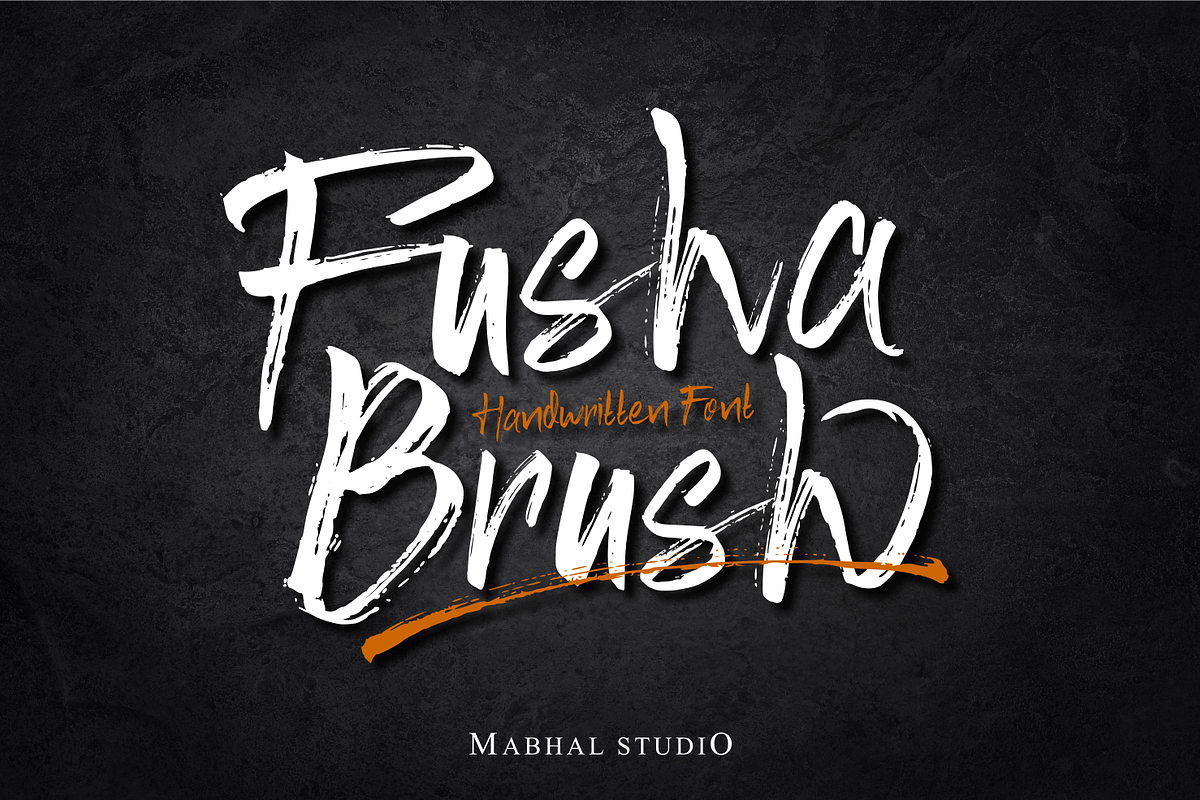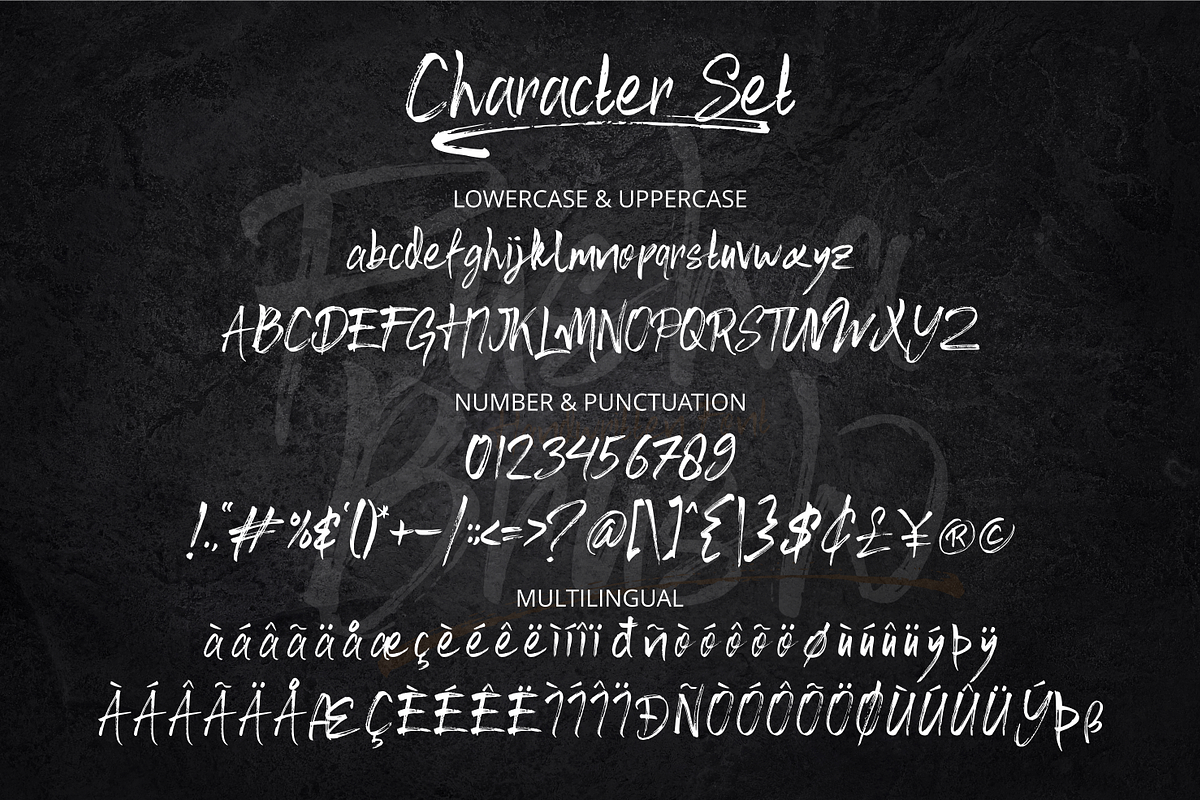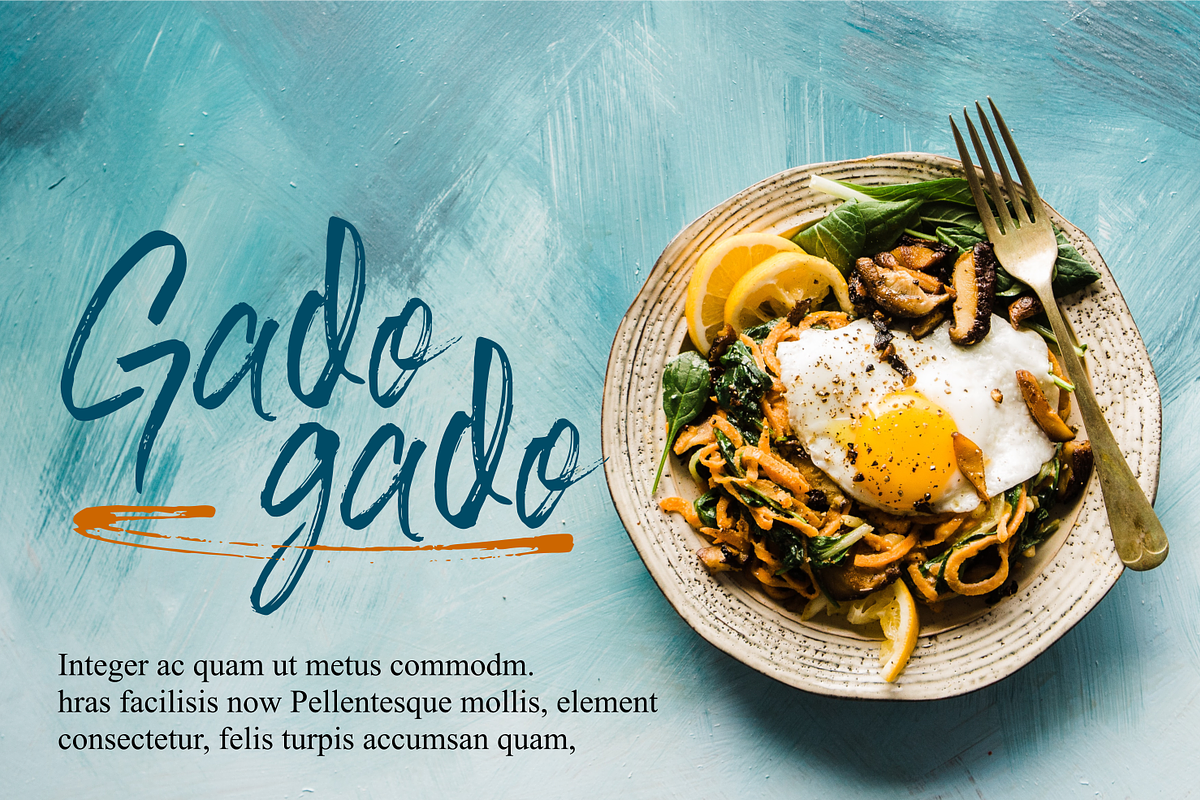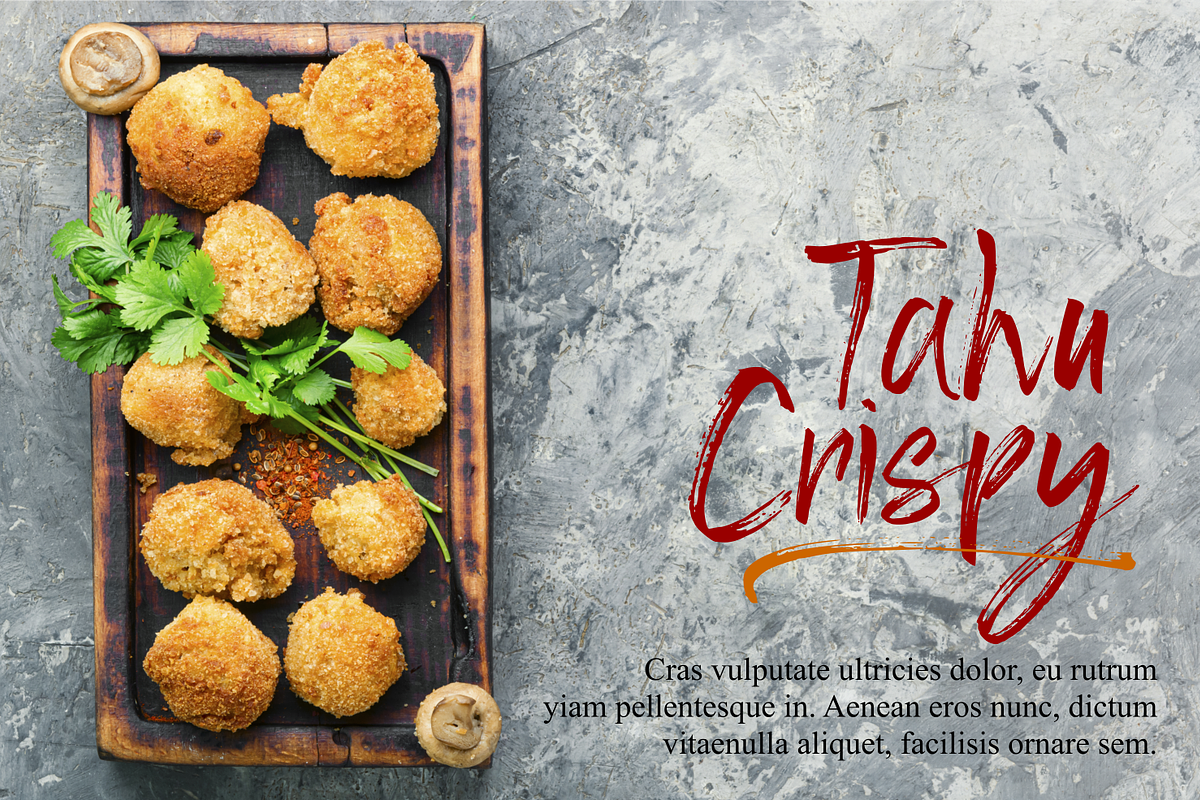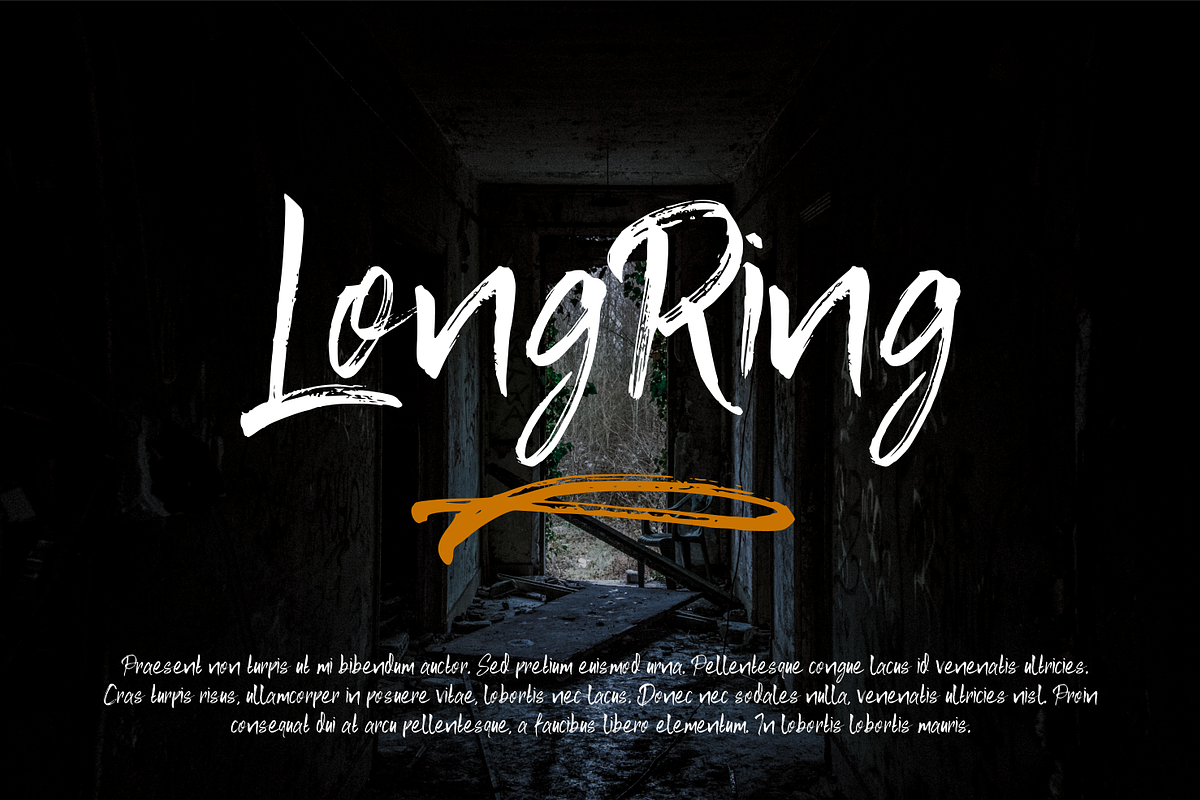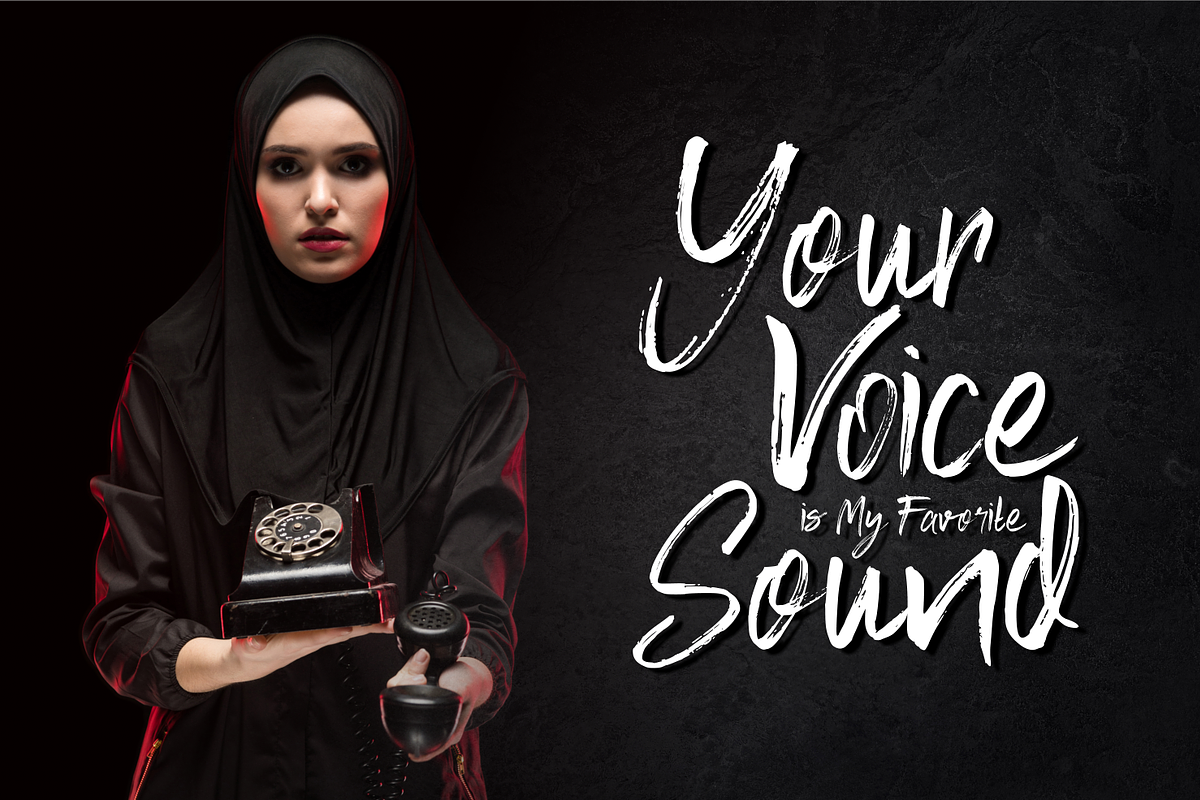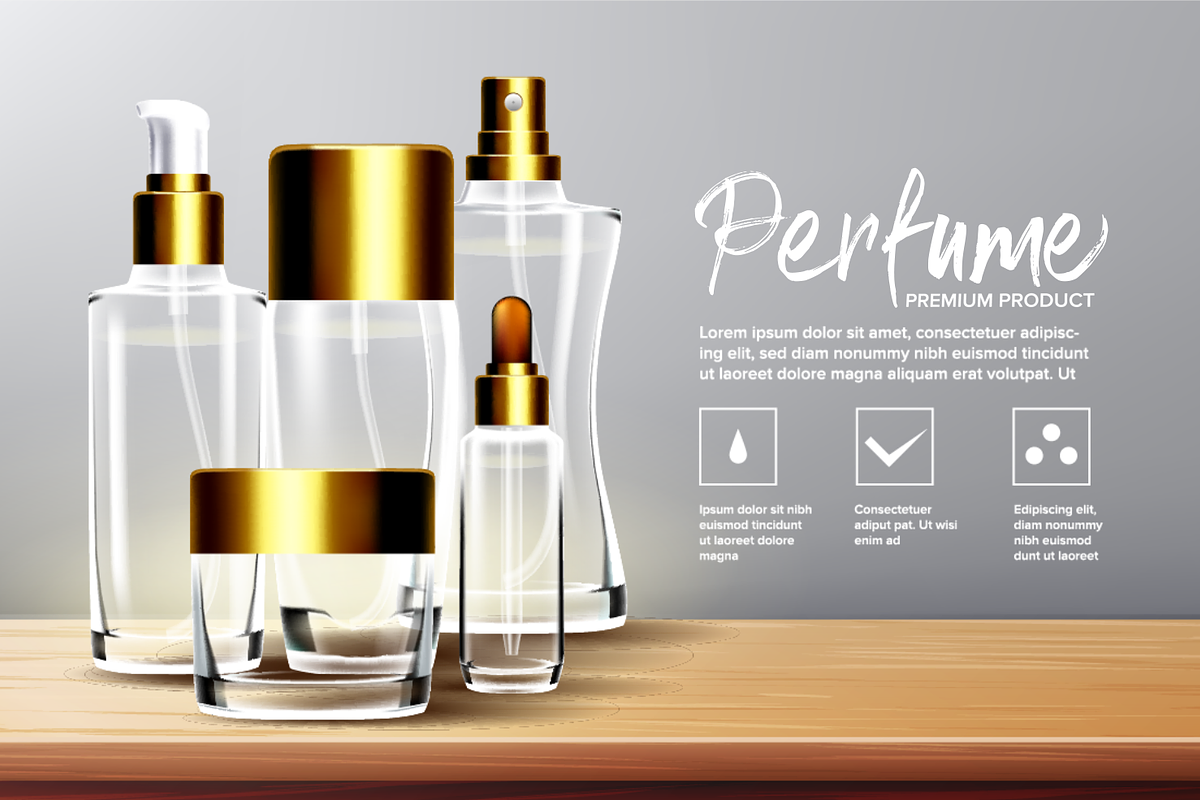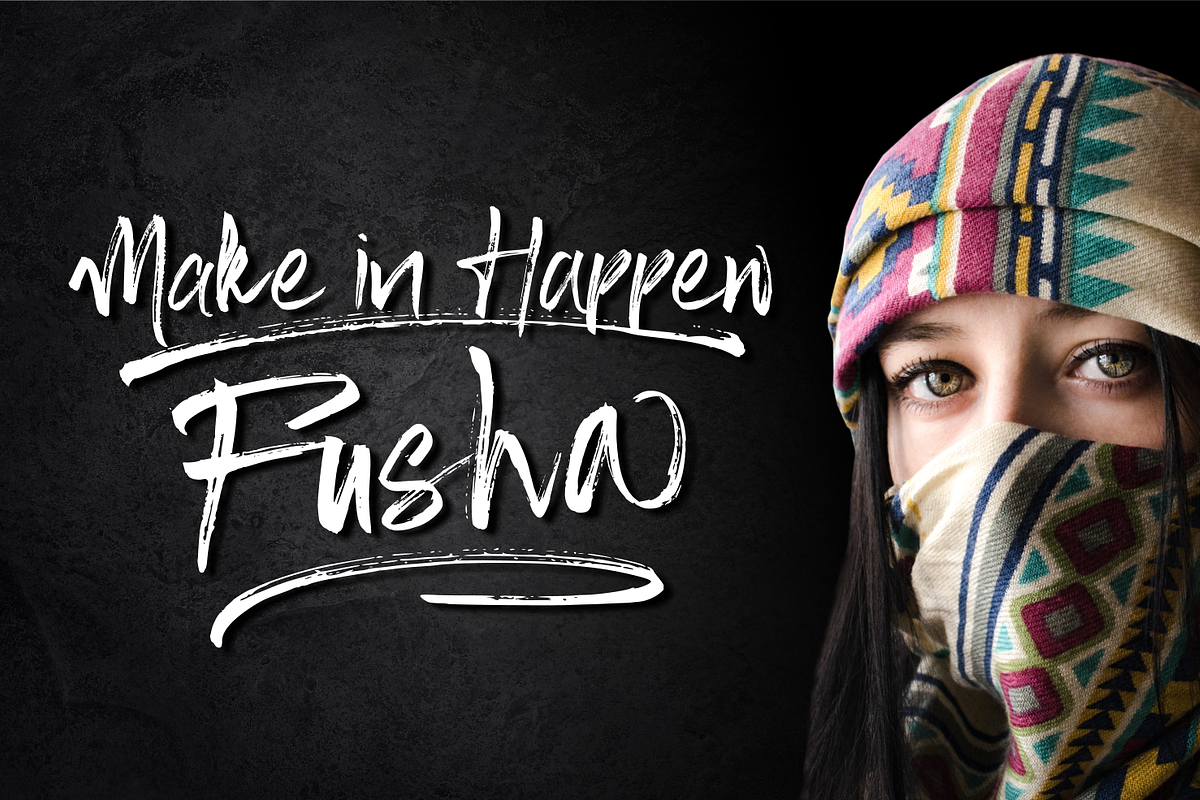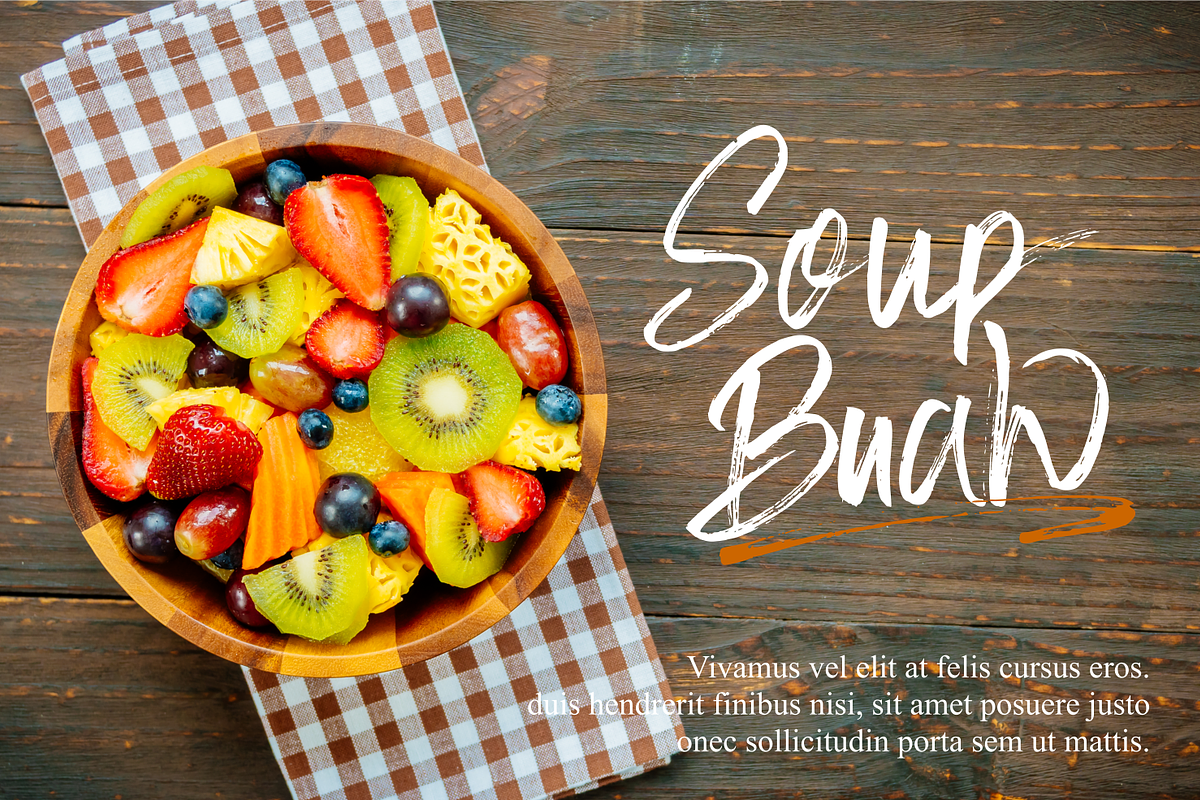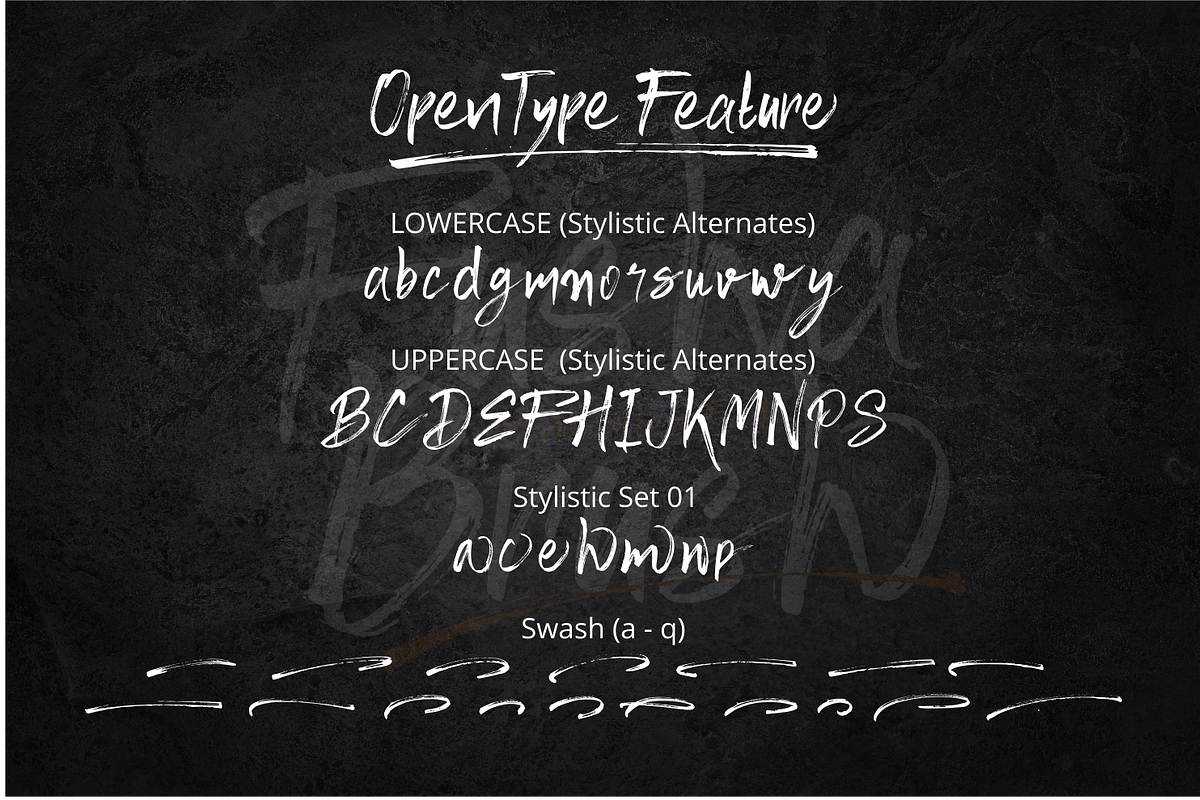
Fusha Brush
Fusha Brush is a casual, fun handwritten font, created by using a brush pen. This enchanting font will turn any creative idea into a true standout.